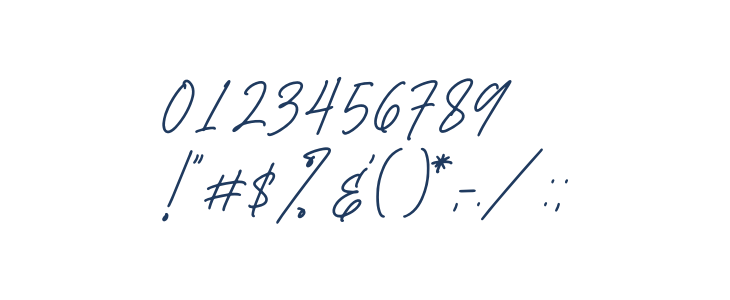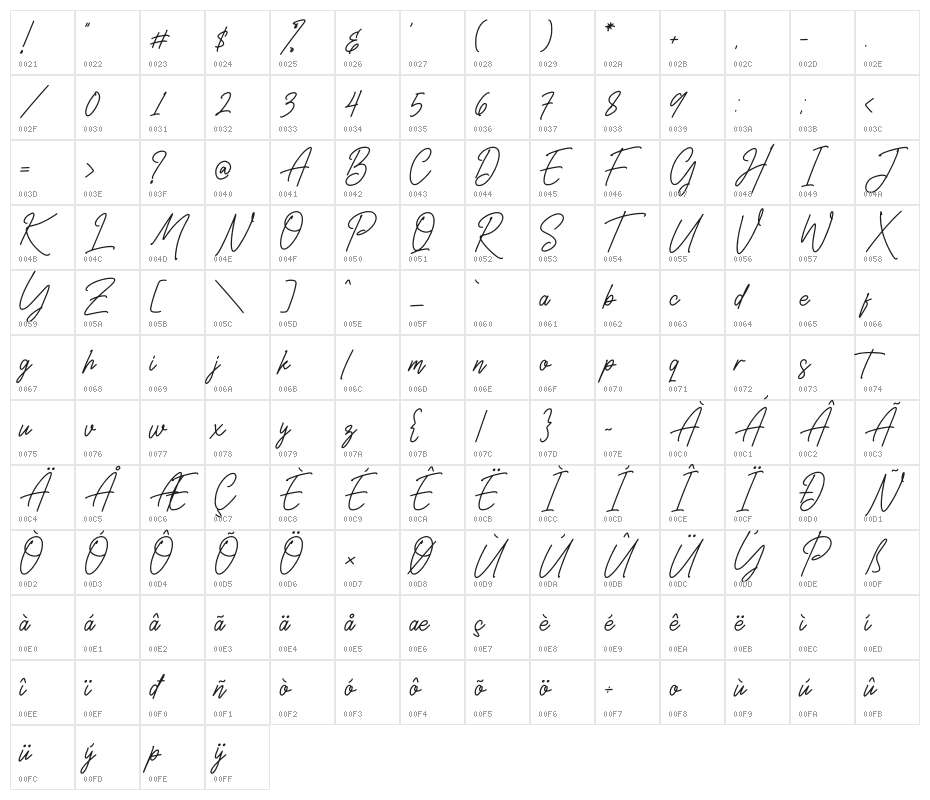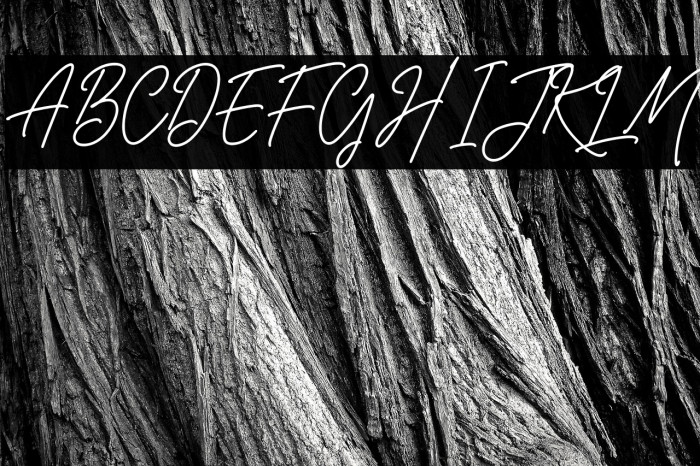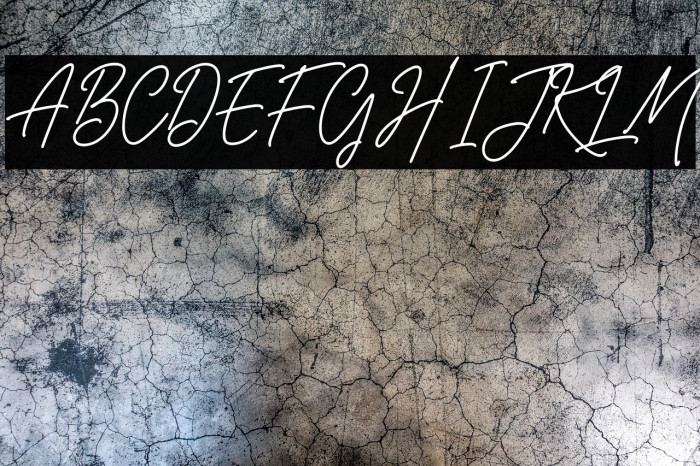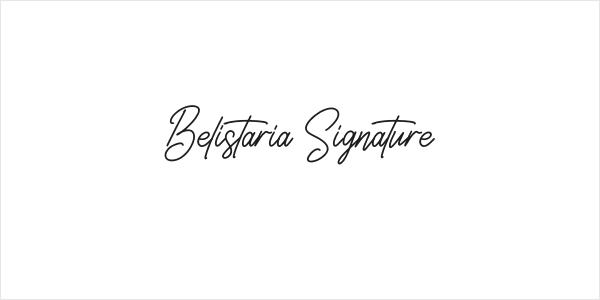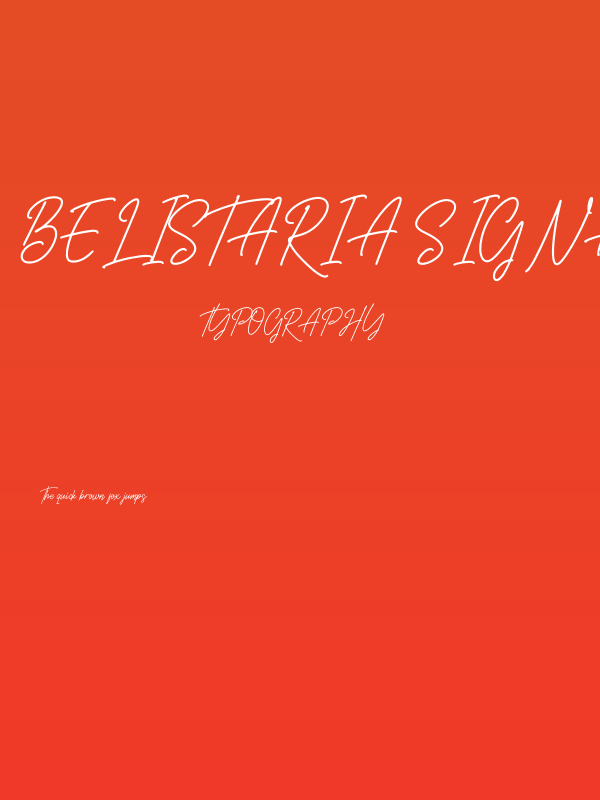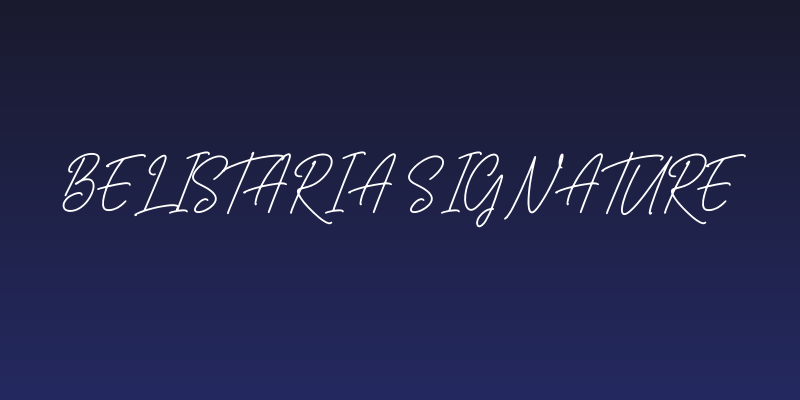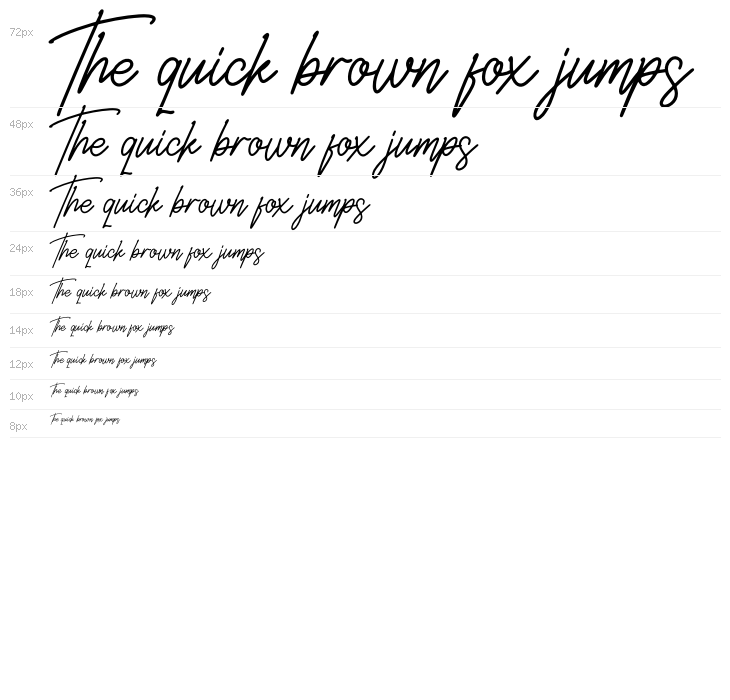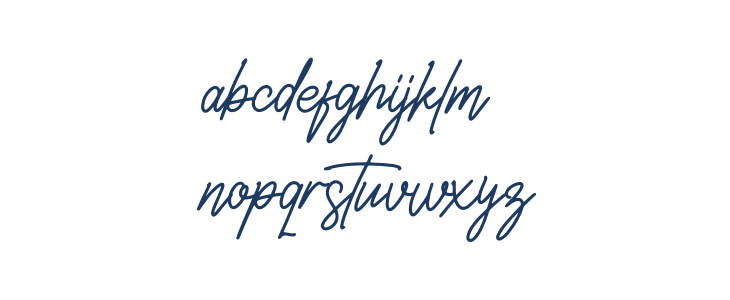
Belistaria Signature Font
Belistaria Signature Description
This font exudes a sophisticated and elegant handwritten style, characterized by its fluid and graceful strokes. The letters are connected in a cursive manner, giving it a seamless and flowing appearance. The uppercase letters are tall and slender, while the lowercase letters maintain a consistent height, enhancing readability. The numerals are distinct and align well with the overall script style. Special characters are thoughtfully designed to complement the alphabet, maintaining the font's cohesive aesthetic. This font is perfect for adding a personal touch to any design project.